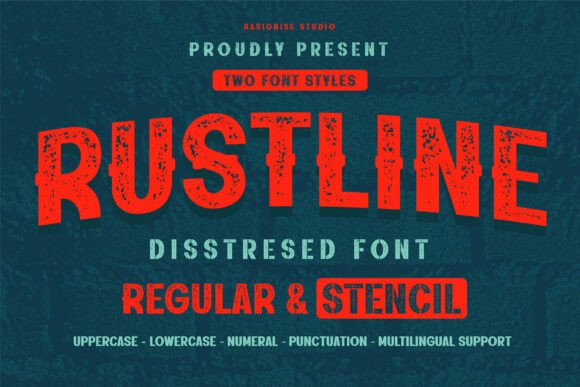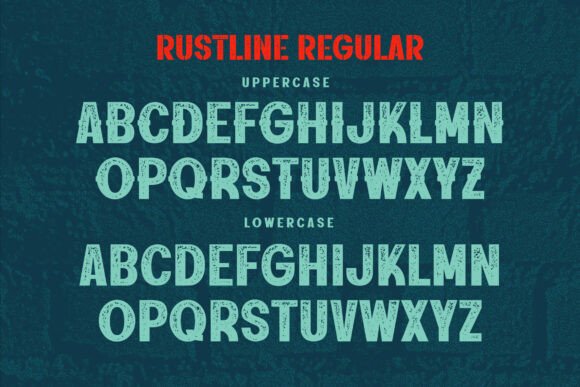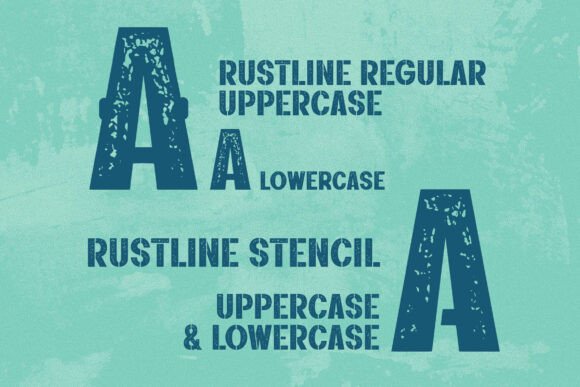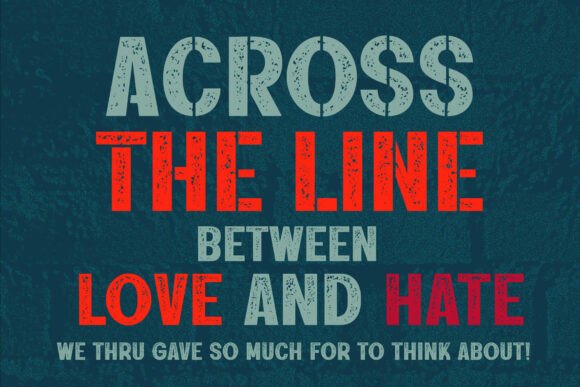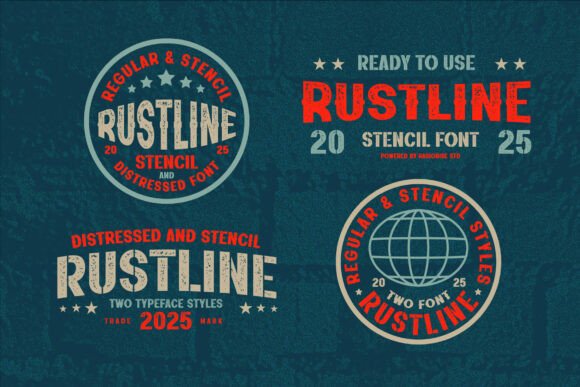
Rustline Font
Rustline is a unique and distressed sans serif font. A little bit quirky, this font looks incredibly adept on a wide variety of contexts!